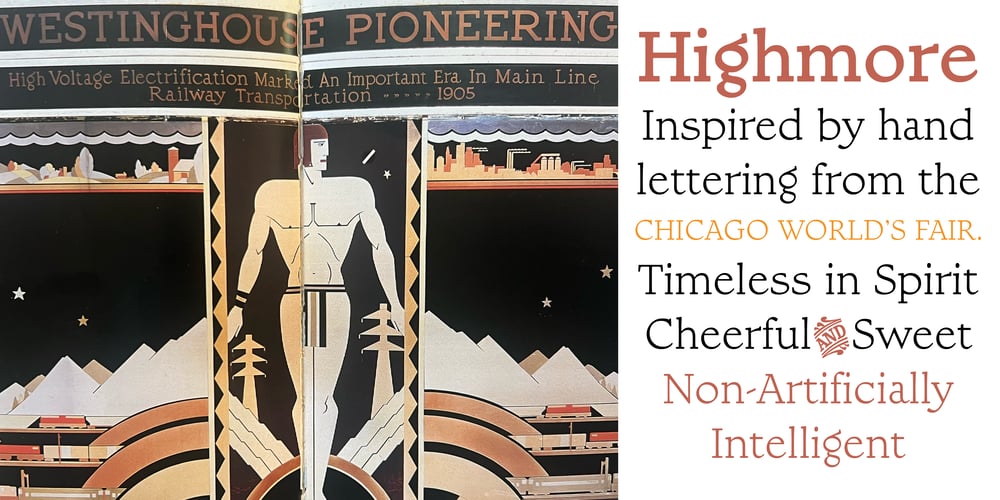
Highmore
Highmore font
Highmore Font Family was designed by Steve Matteson and published by Matteson Typographics. Highmore contains 3 styles and family package options. Highmore is a typeface inspired by 1930s lettering used during the 1933 Chicago World’s Fair. The Westinghouse Corporation’s booth dedicated to electrified railroad transport included hand lettering produced by an unknown artist. The narrow flat brush is evident in the slight contrast and lively stroke endings of the lowercase a, e, g and r. The typeface evokes the timelessness of brush lettering in commercial art. Ideal for friendly poster work, invitations and packaging.